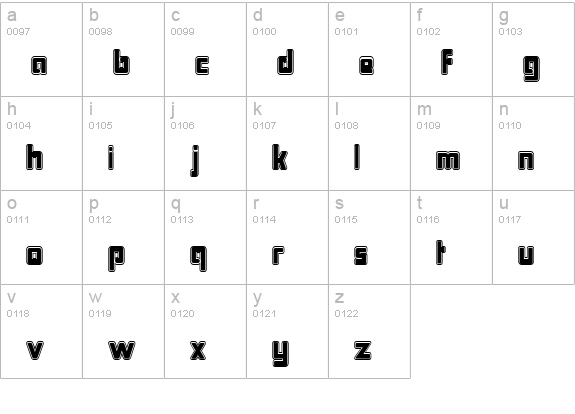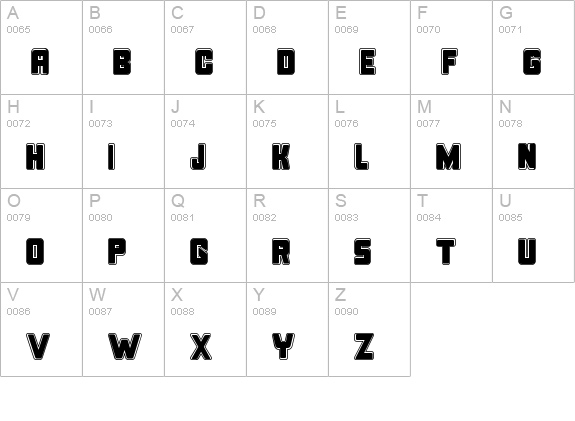
Introducing Bonk College font - a versatile and stylish typeface perfect for various design projects. With its unique blend of modern and classic elements, Bonk College font exudes sophistication and elegance. Its bold and clean lines make it ideal for headlines, logos, posters, and more. What sets Bonk College font apart is not only its timeless design but also the fact that it is available for free download at FontsMarket.com. Yes, you read that right - this high-quality font can be yours at no cost, allowing you to elevate your designs without breaking the bank. Don't miss out on this fantastic opportunity to enhance your projects with the exquisite Bonk College font. Download it today and let your creativity shine!